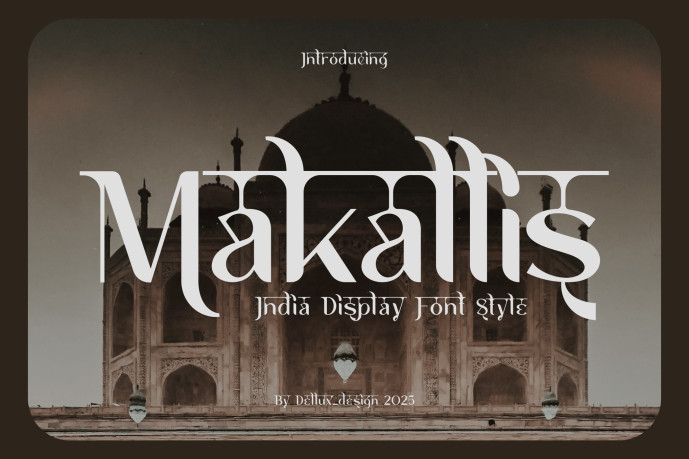
Makallis Display Font
Designer: dellux_design
Makallis Display Font is a unique font. Can make it easier to convey the message in your design. Use for awesome display, labeling, movie sceen, poster, movie title, gigs, album covers, logos, and much more.